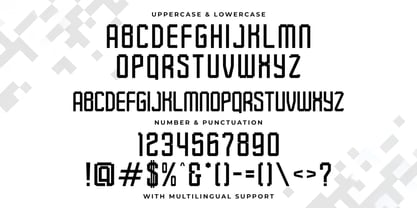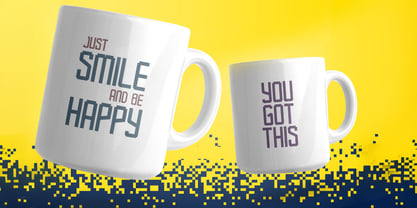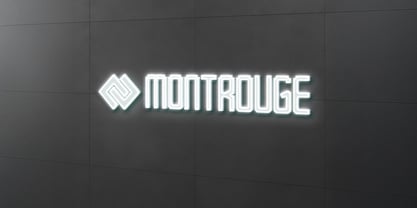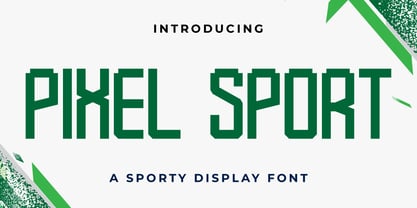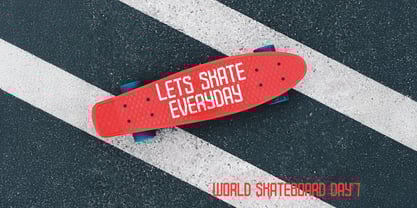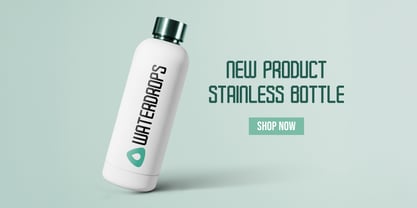
The Pixel Sport Font Family was designed by Virgiawan Listanto and published by Stringlabs Creative Studio. Pixel Sport contains 1 styles. More about this family
Pixel Sport is a unique sporty display font that masterfully blends a classic 8-bit aesthetic with a modern, high-energy athletic feel. The distinct, blocky letterforms give it a digital, retro-futuristic charm, while its bold design ensures it's perfect for capturing speed and dynamism. It's the ideal choice for projects at the intersection of gaming and sports, from esports team logos and Twitch stream overlays to tech company branding and eye-catching event posters.
Designers: Virgiawan Listanto
Current Foundry: Stringlabs Creative Studio